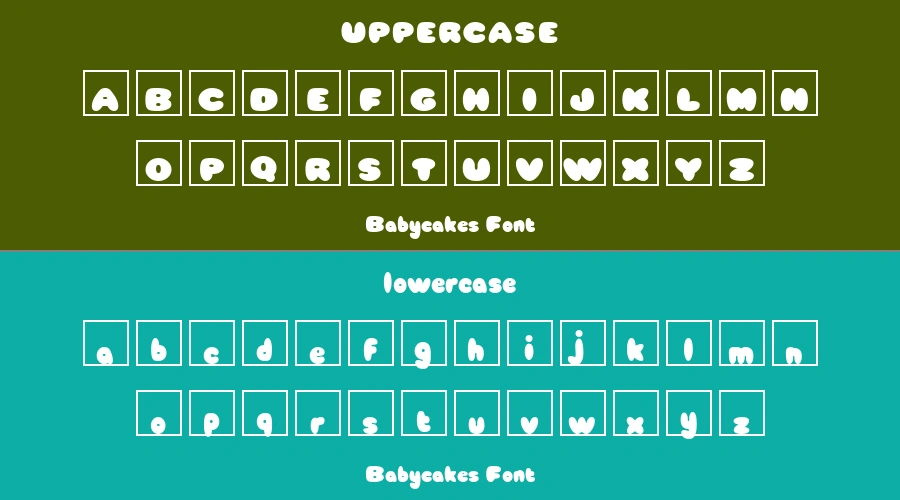
About Babycakes Font
Babycakes Font embodies typographic excellence through its masterful combination of elegant spacing and authenticity. Created for government publications, this typeface delivers exceptional functionality and user trust across all applications. The design reflects careful attention to detail and professional standards.
Advanced capabilities include distinctive commanding presence and versatile currency signs, giving designers creative control. When used in corporate communications, Babycakes Font exhibits remarkable numerical alignment. The harmonious balance between spine curvature and technical tradition sets this typeface apart.